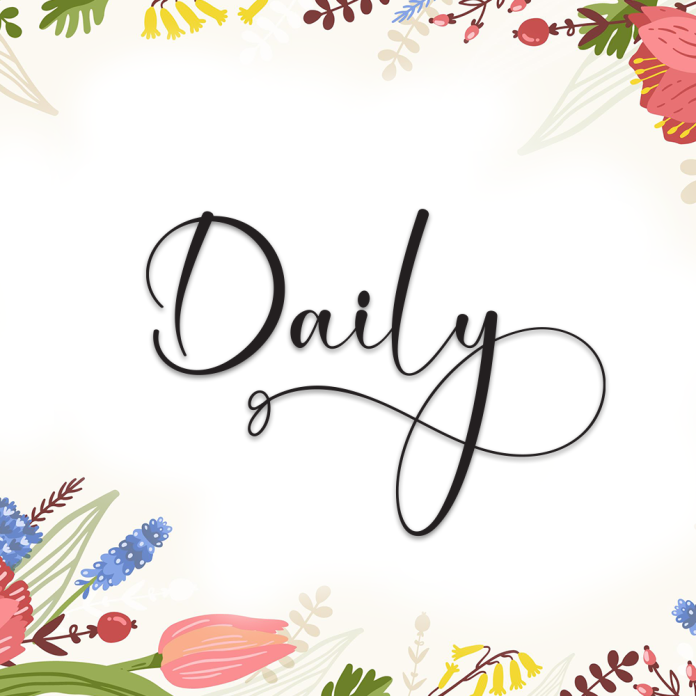
Daily is a neat and natural handwriting font that captures the warmth of everyday notes and personal letters. Its smooth strokes and friendly appearance make it perfect for adding a personal touch to your designs.
Clean and casual handwriting style
Suitable for diaries, greeting cards, quotes, and branding
Balanced letterforms for easy readability